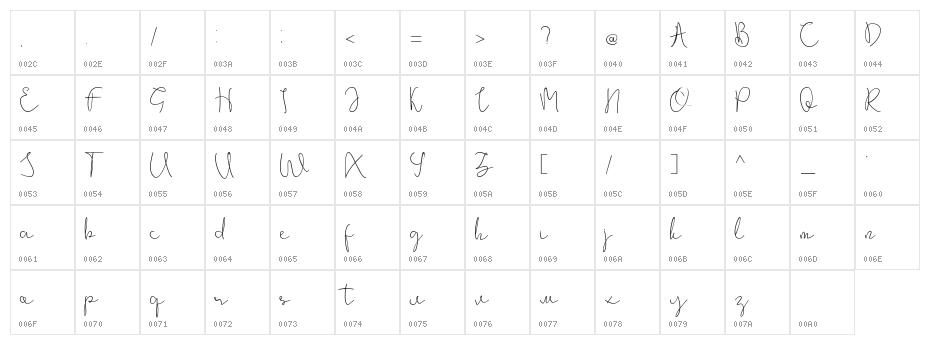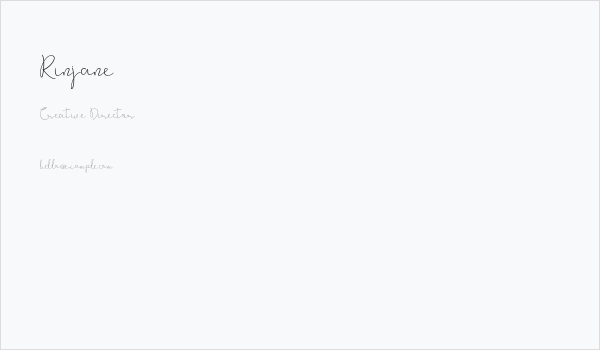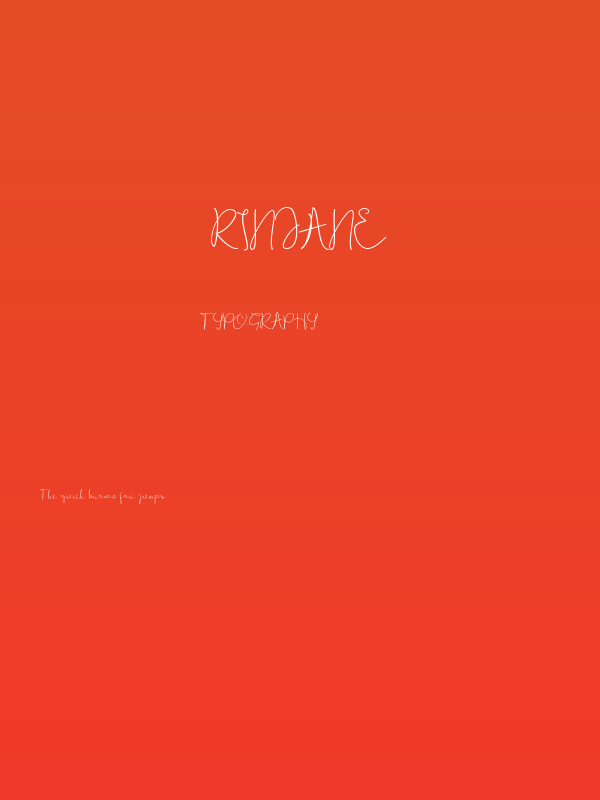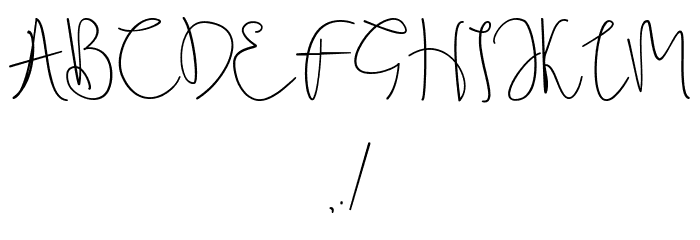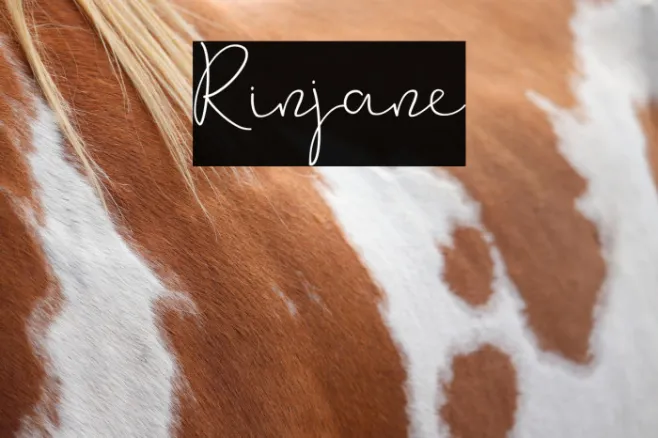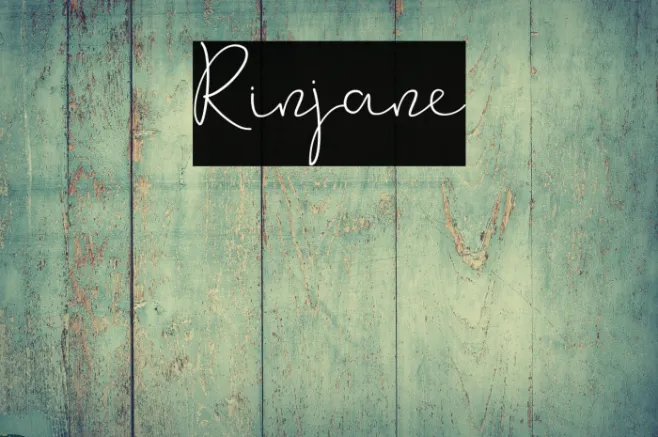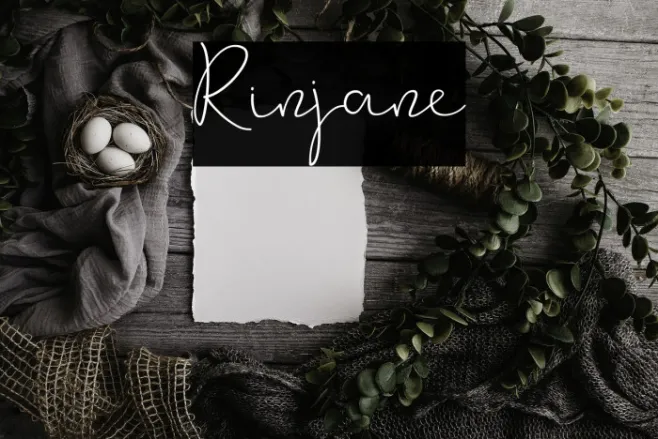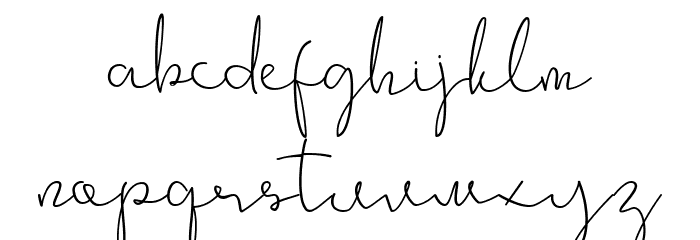
Rinjane Font
Rinjane Description
This font features a playful and whimsical script style, characterized by its flowing, interconnected letters that mimic the fluidity of handwriting. The uppercase letters are bold and expressive, with exaggerated loops and curves, while the lowercase letters maintain a consistent, elegant flow. The overall design is airy and light, with a sense of movement that adds a dynamic quality to the text. The font's thin strokes and delicate lines give it a refined and sophisticated appearance, making it suitable for creative and artistic projects.
| Proposed Projects | Ideal for wedding invitations, greeting cards, personal branding, and artistic projects that require a touch of elegance and creativity. |